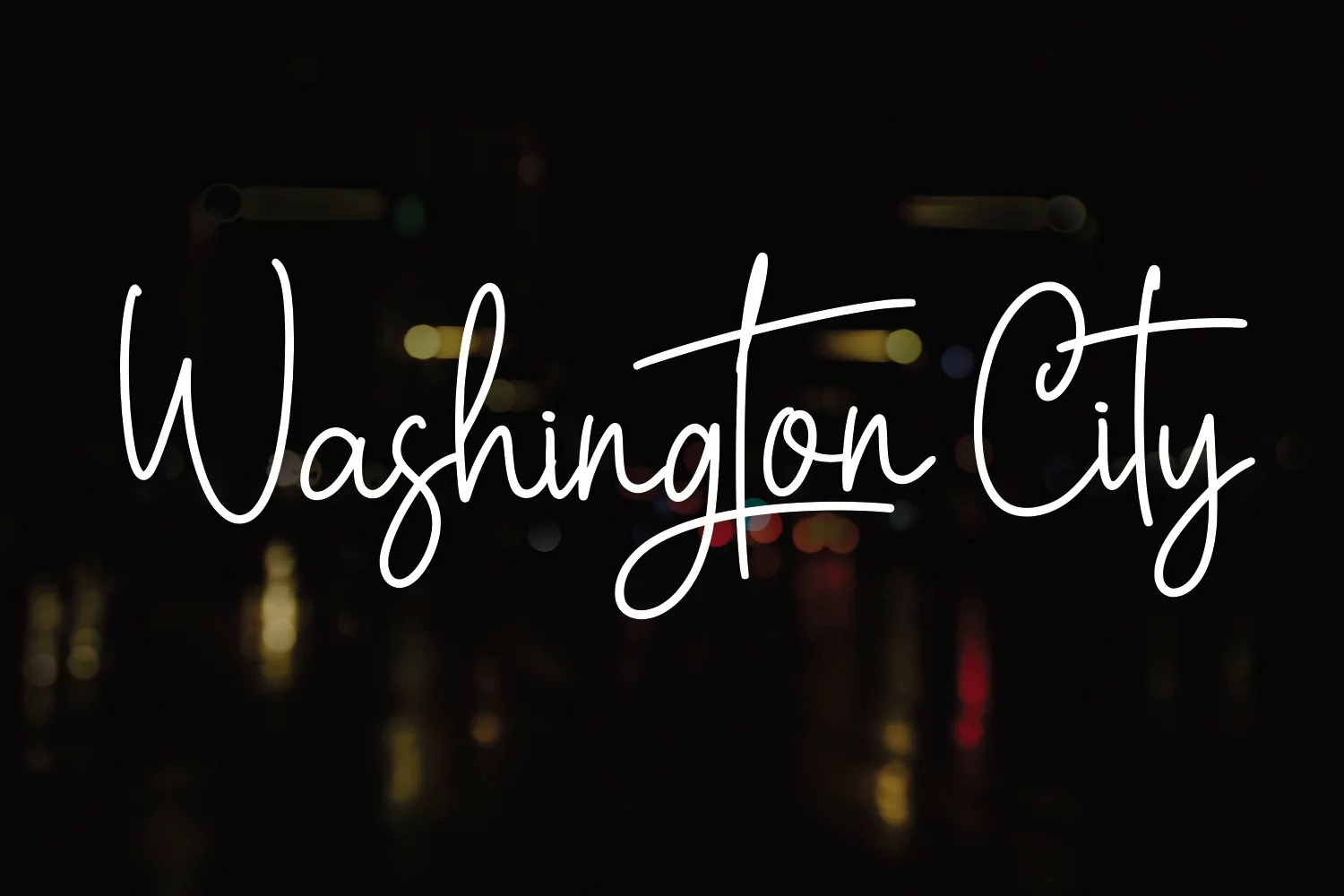
Headstrong
Headstrong Script is a thin and beautiful handwritten font. Its distinct and well rounded letters make this font a masterpiece.
It is is a sweet and cool script that easily combines legibility and authenticity!
Headstrong Script consisting of a fashionable sophisticated signature-style script with its own unique curves and an elegant inky flow.
Headstrong Script feels incredibly elegant and flowing. It looks stunning on wedding invitations, thank you cards, quotes, greeting cards, logos, business cards and every other design which needs a handwritten touch. It features a varying baseline, smooth lines, gorgeous glyphs and stunning alternates.
Fall in love with its incredibly versatile style and use it to create spectacular designs!
Use this font for any crafting project that requires a personalized look!